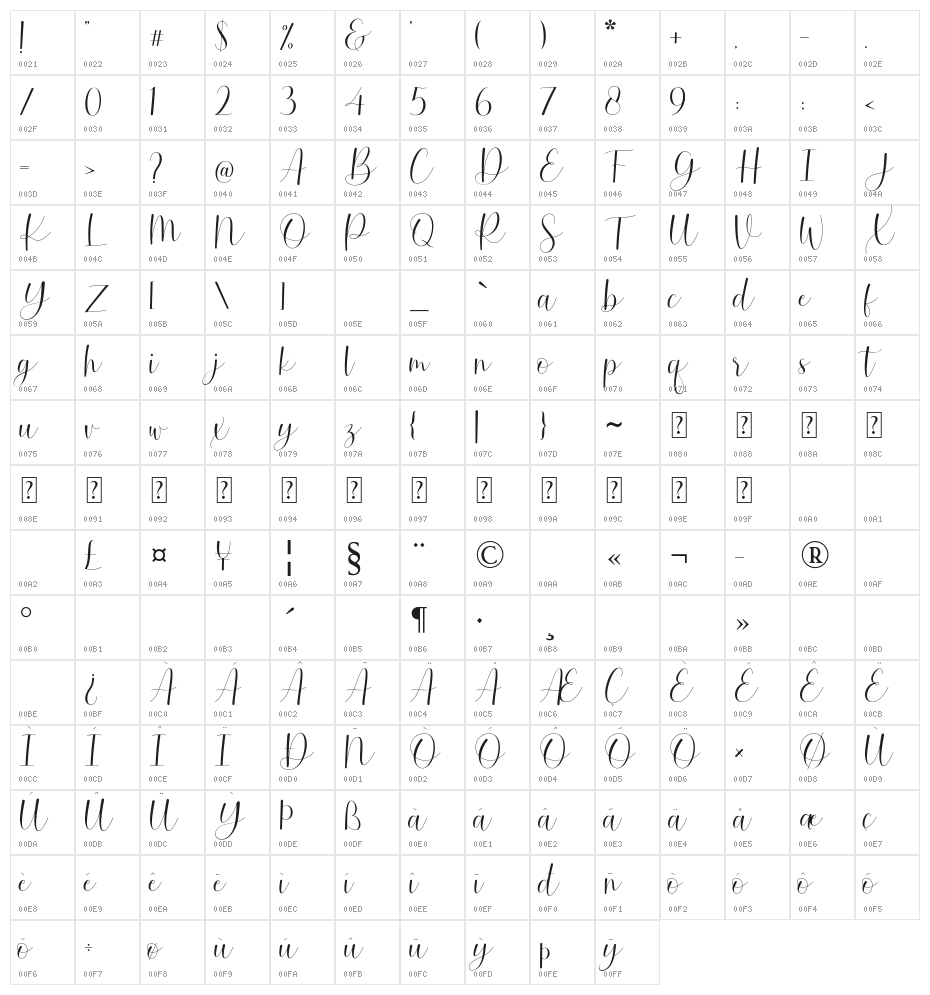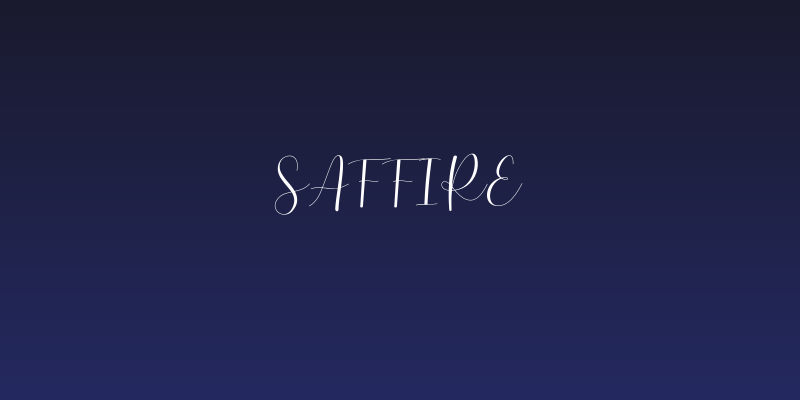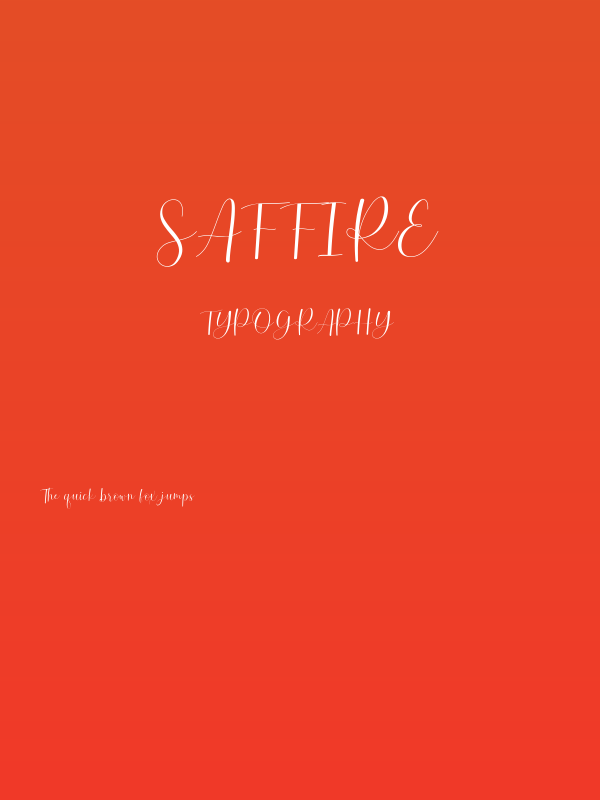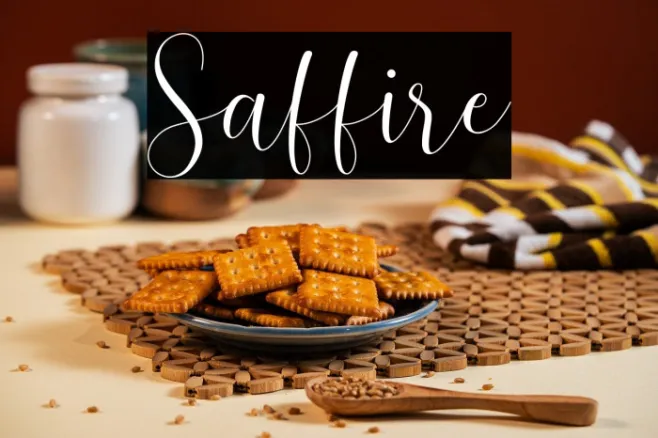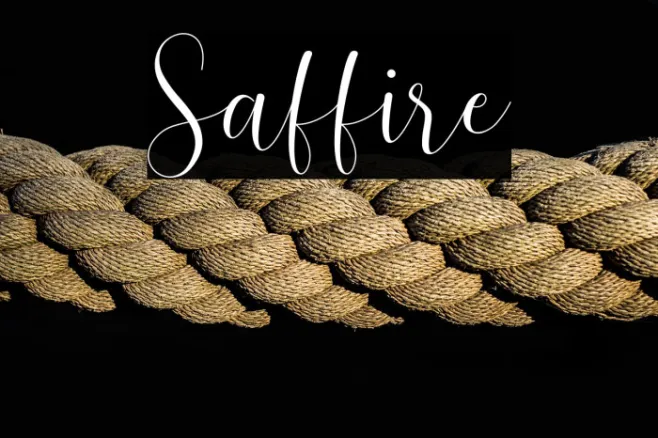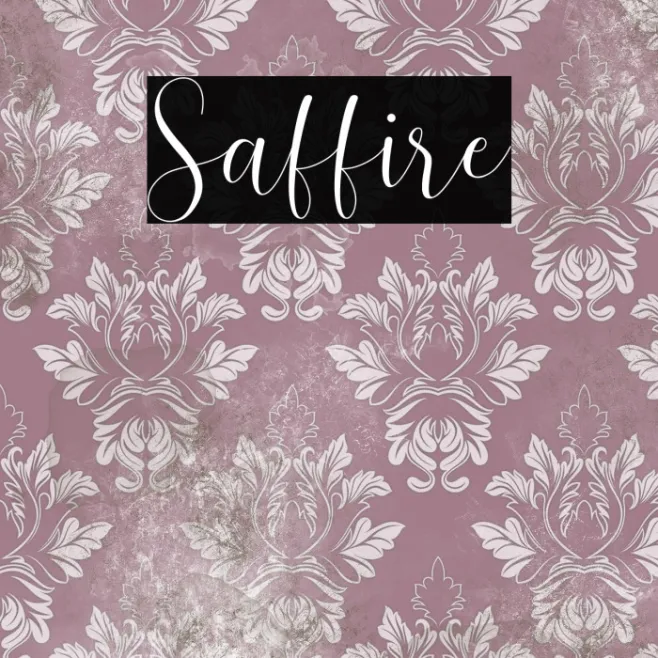
Saffire Font
Saffire Description
This elegant script font features flowing, cursive letters with a refined and sophisticated appearance. The uppercase letters are characterized by sweeping curves and delicate loops, while the lowercase letters maintain a consistent fluidity that enhances readability. The numerals are stylishly crafted, complementing the overall aesthetic of the font. Special characters are thoughtfully designed, maintaining the graceful theme. The font's thin strokes and gentle curves give it a light and airy feel, making it ideal for projects that require a touch of elegance and charm.